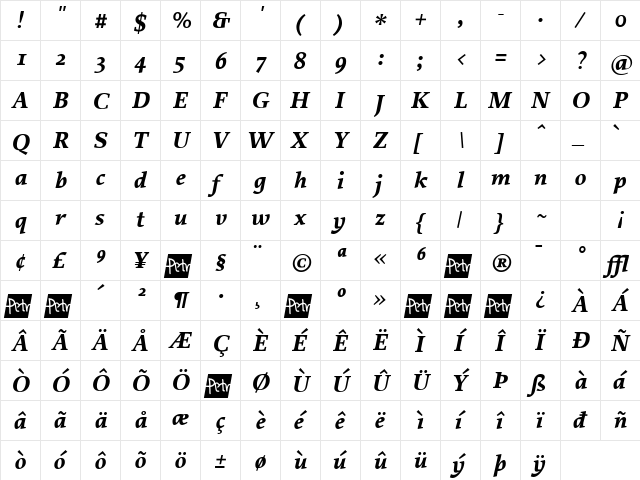
Proforma BoldItalic
Design Context for Proforma Typeface
Proforma offers clean, dependable letterforms without strong stylistic allegiance, making it a practical choice for designers who need flexibility. Its italic angle brings a sense of urgency and motion to the letterforms. Its bold stroke weight gives it real presence on the page.
Pro Tip: Use Proforma for emphasis, pull quotes, and subheadings where its slanted energy can add rhythm to the layout.